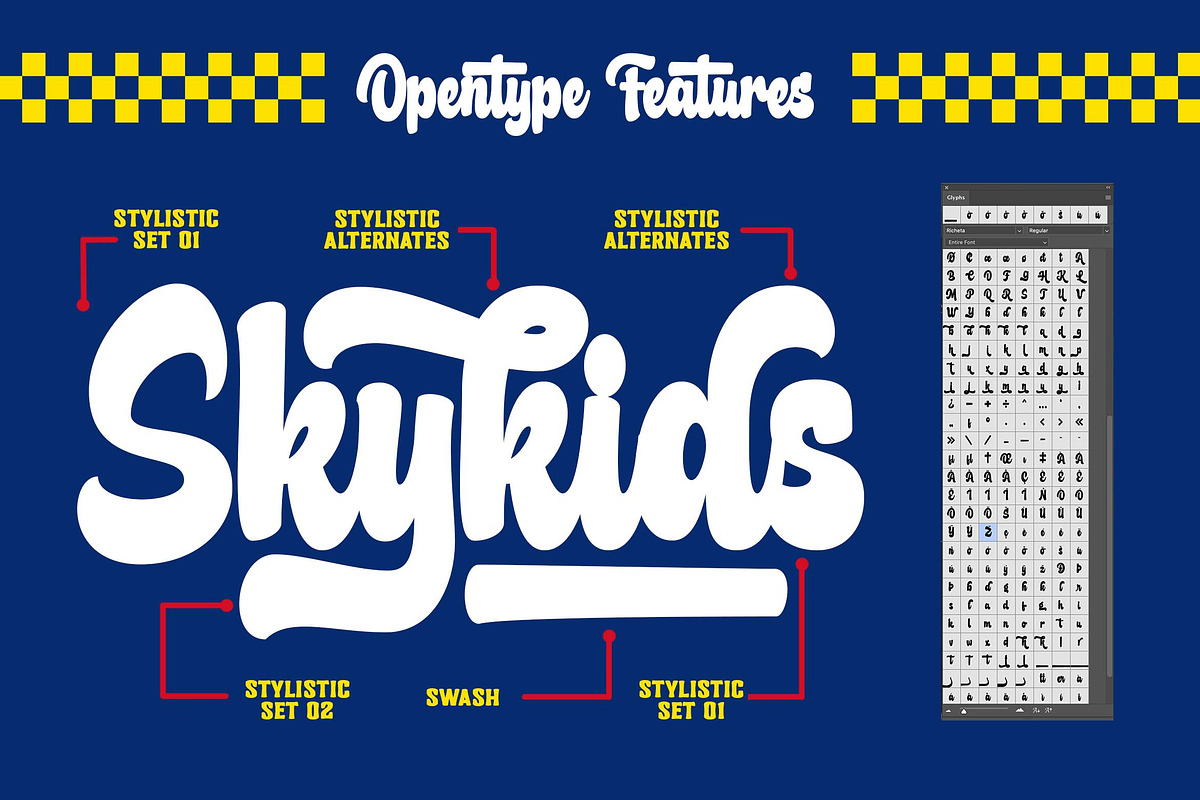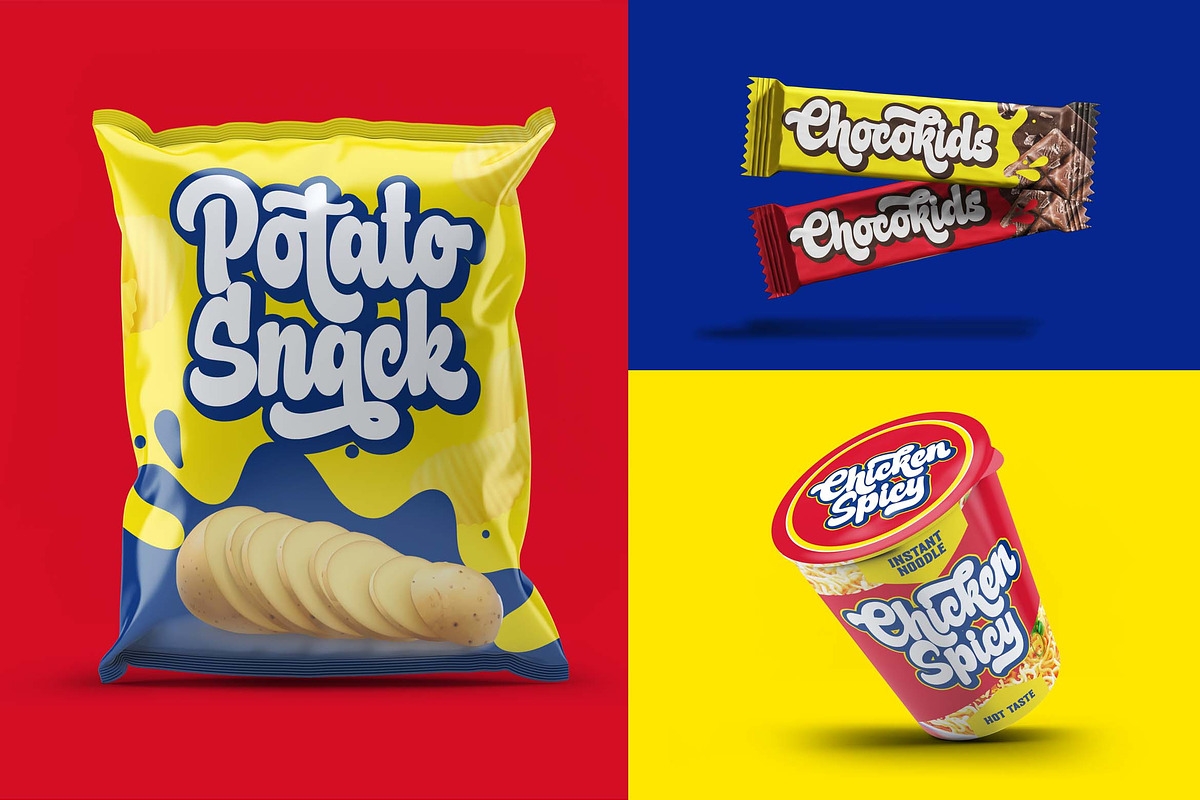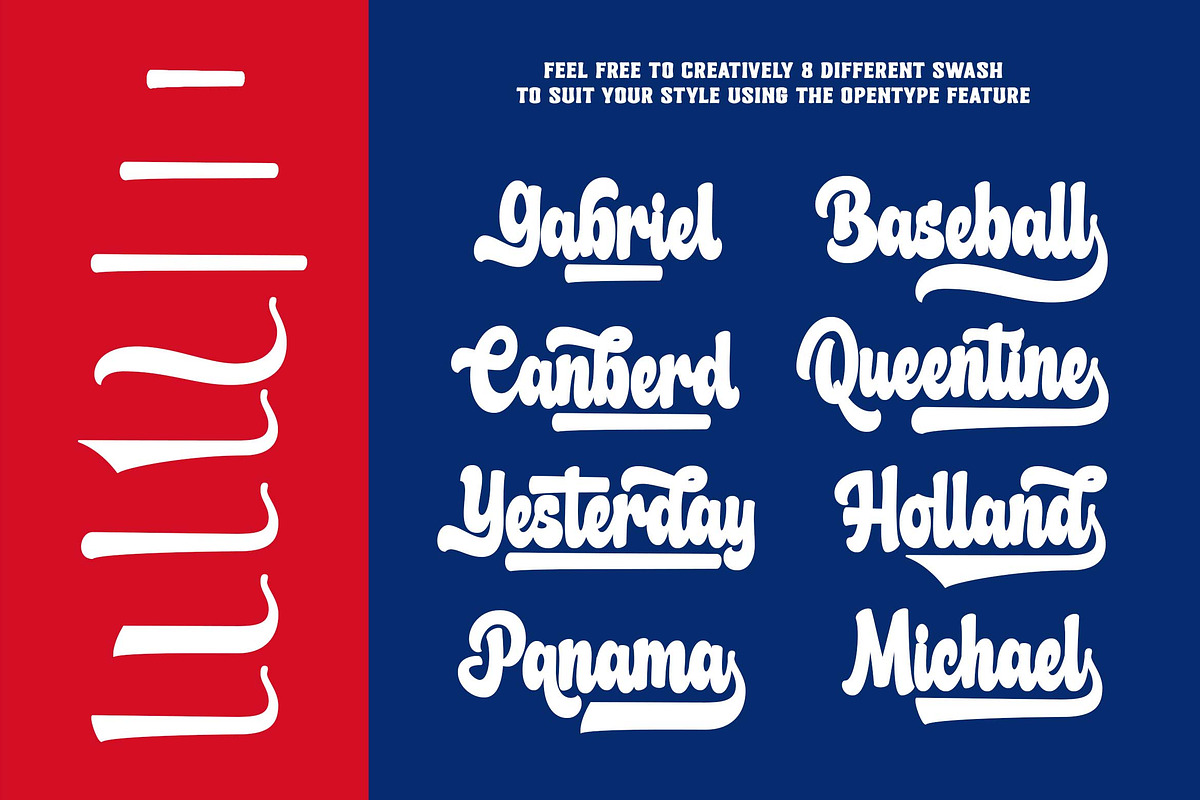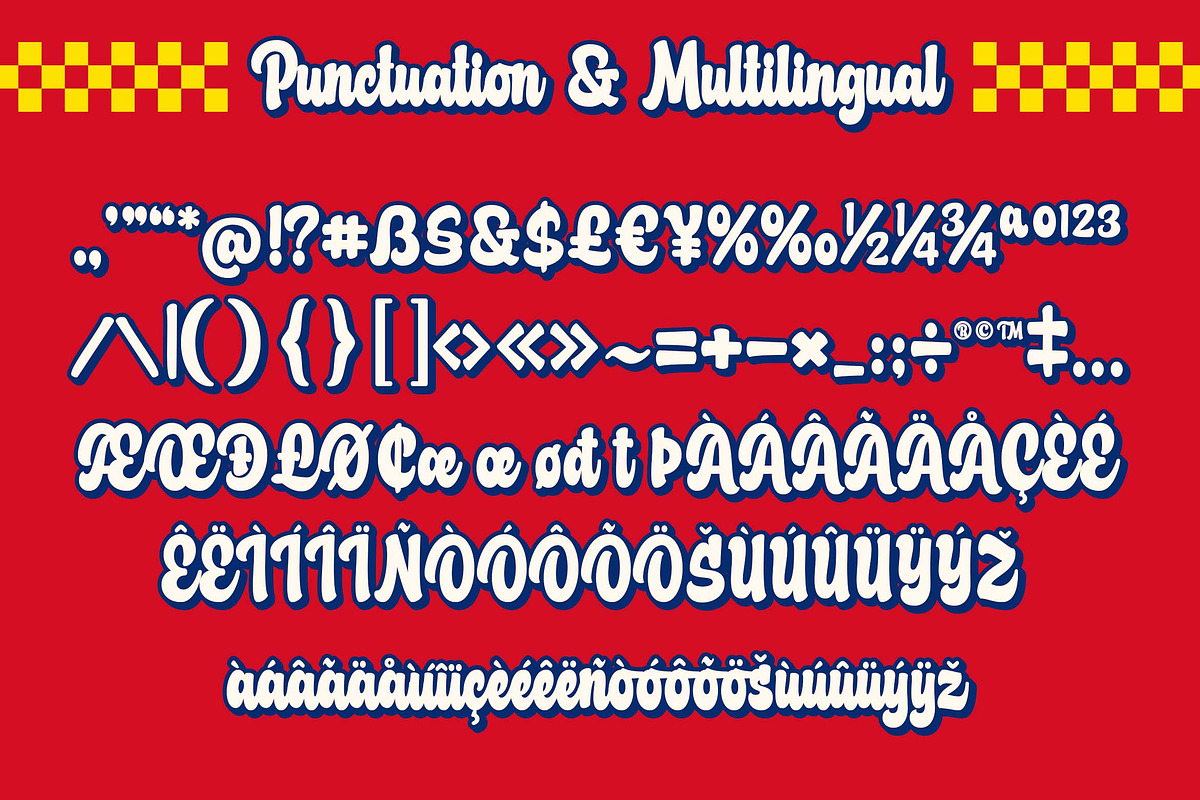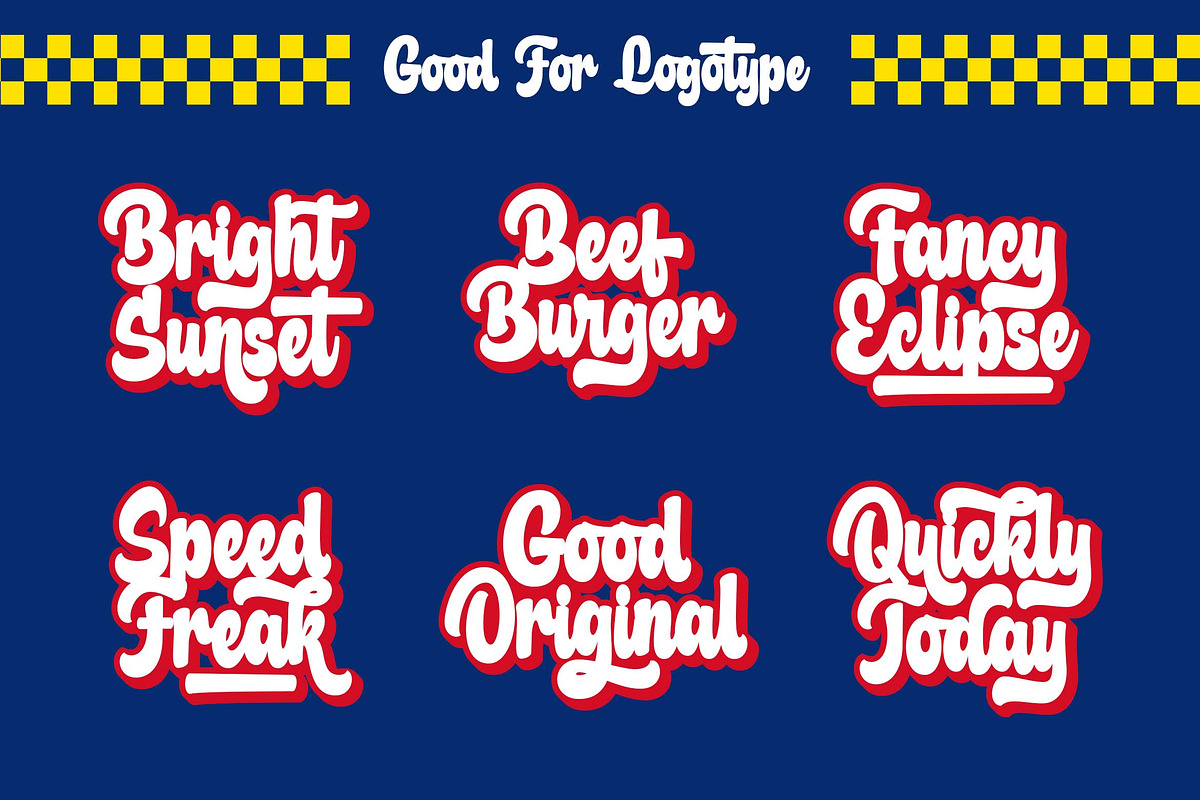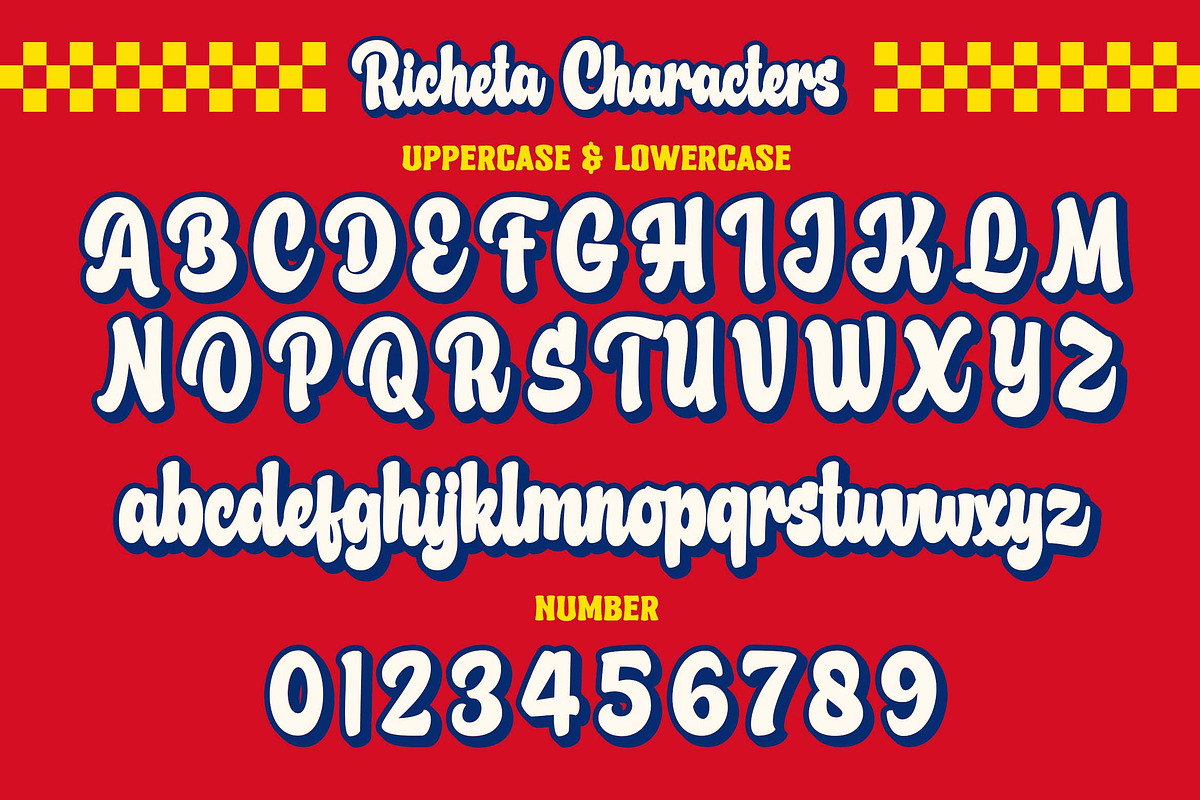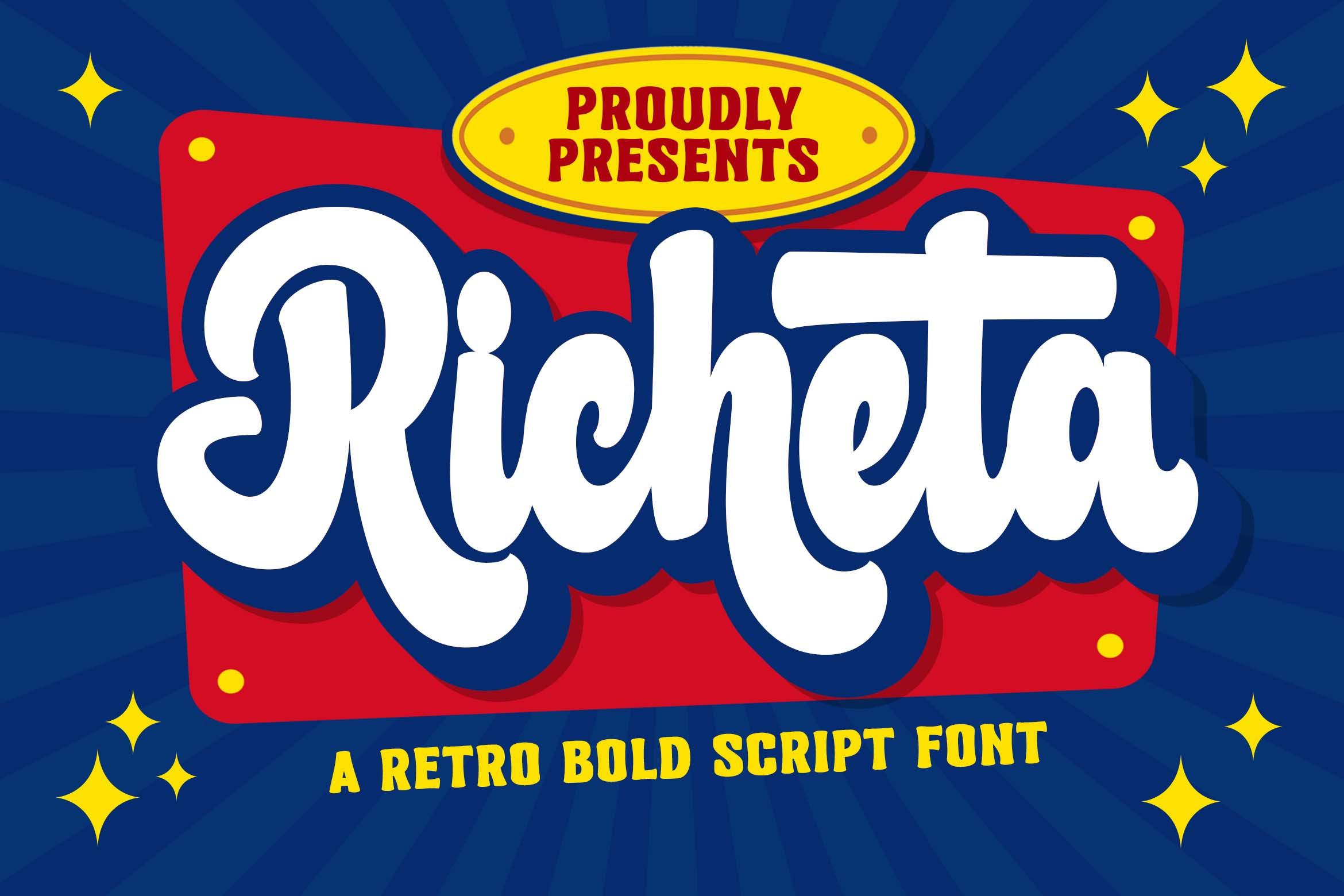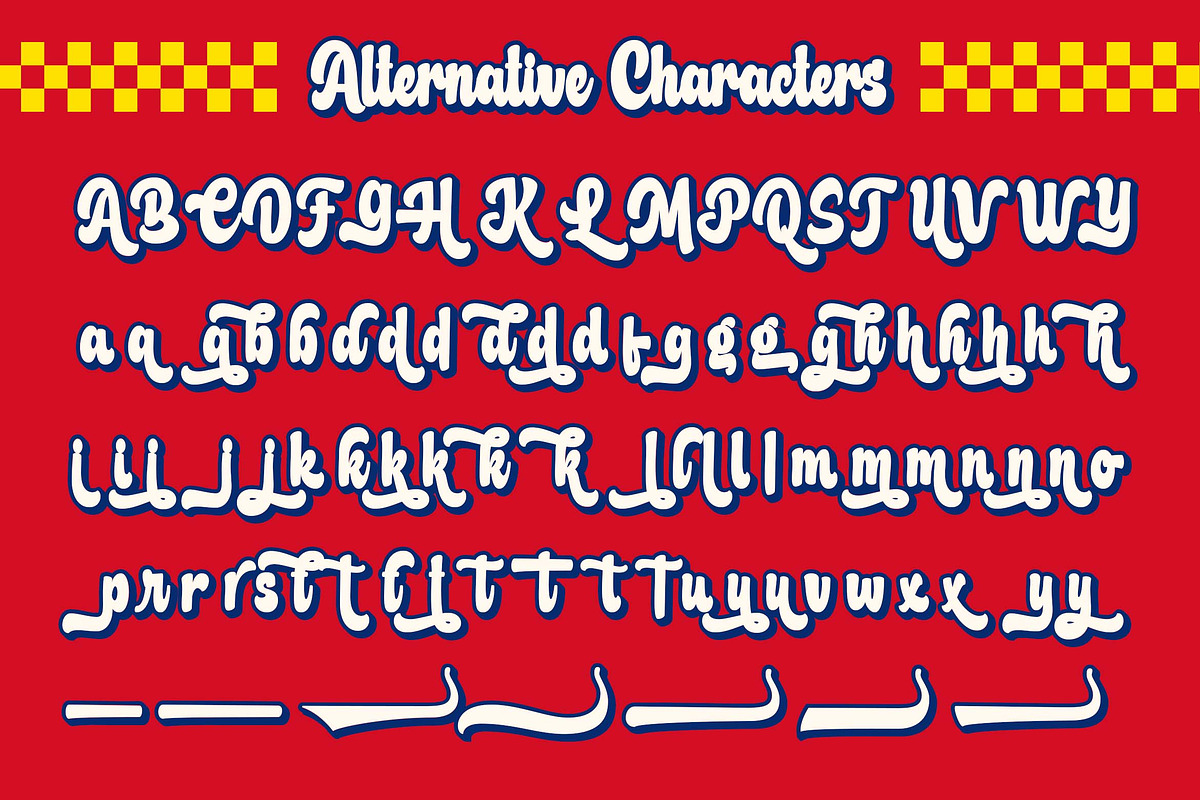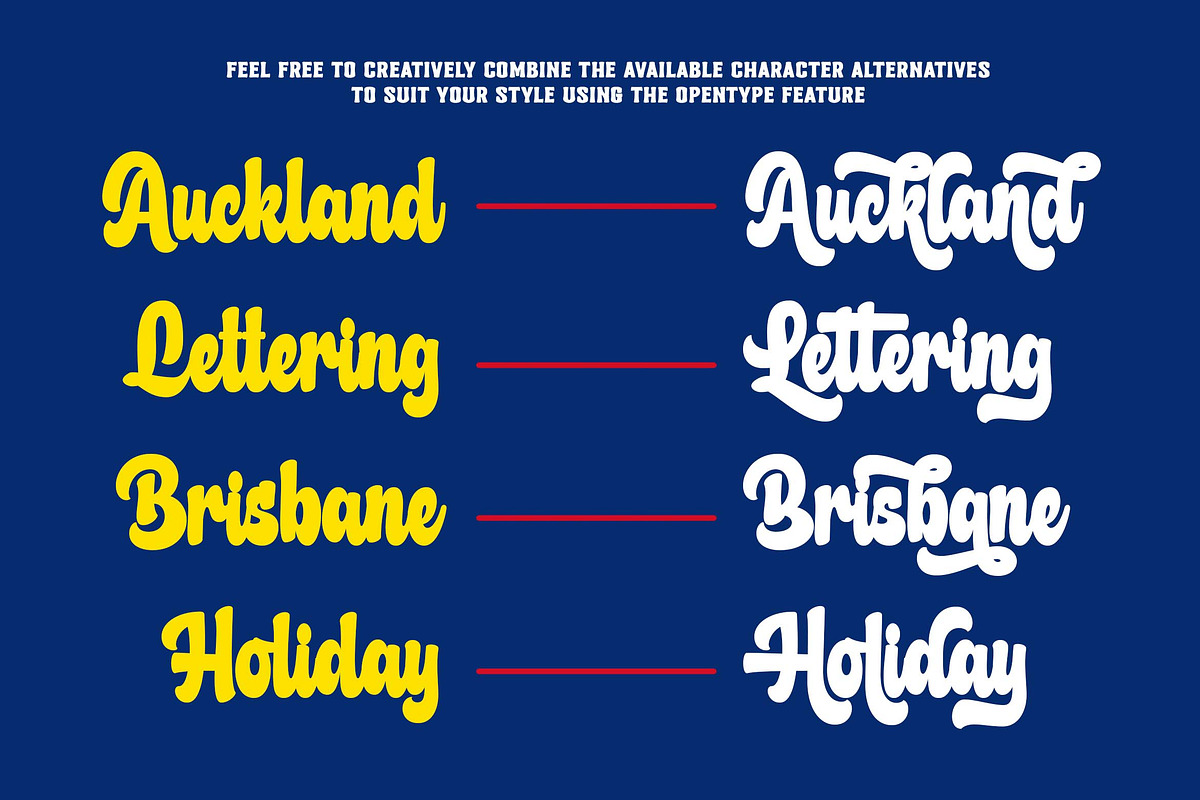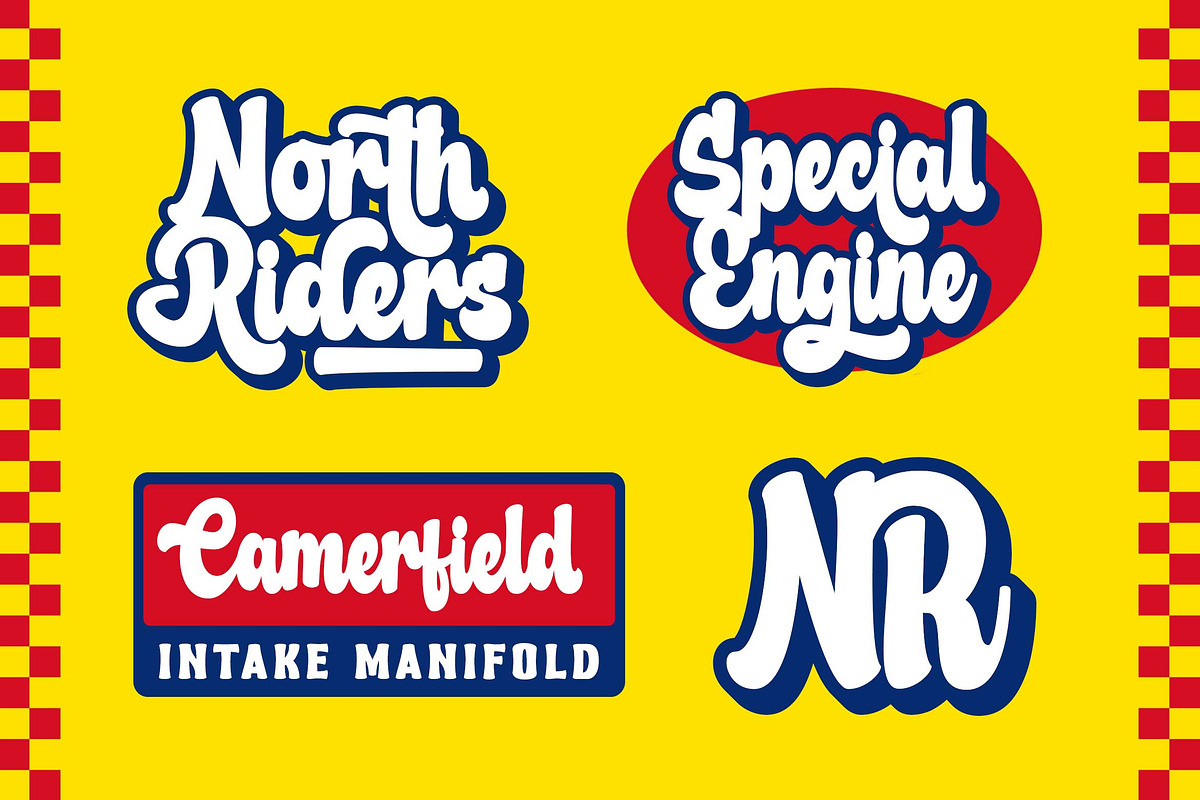
Richeta a Retro Bold Script Font
Hello, awesome people! This time, we have a new font called Richeta, a retro bold script font combination by Blankids Studio.
Richeta, a retro bold script font combination is made for any professional project branding, such as logotype, watermarks, poster, branding, promotions, product packaging, etc. Every letter has a playful retro style design. This font comes in 3 style font.
Richeta font includes a full set of retro uppercase and lowercase letters, numerals and punctuation. This font has a retro style. See the previews above to get some inspiration on how to use them. Happy designing!
Support Language:
Afrikaans, Albanian, Asu, Basque, Bemba, Bena, Breton, Catalan, Chiga, Cornish, Danish, Dutch, English, Faroese, Filipino, Friulian, Galician, German, Gusii, Indonesian, Irish, Italian, Kabuverdianu, Kalenjin, Kinyarwanda, Luo, Luxembourgish, Luyia, Machame, Makhuwa-Meetto, Makonde, Malagasy, Manx, Morisyen, North Ndebele, Norwegian Bokmål, Norwegian Nynorsk, Nyankole, Oromo, Portuguese, Quechua, Romansh, Rombo, Rundi, Rwa, Samburu, Sango, Sangu, Scottish Gaelic, Sena, Shambala, Shona, Soga, Somali, Spanish, Swahili, Swedish, Swiss German, Taita, Teso, Uzbek (Latin), Vunjo, Zulu